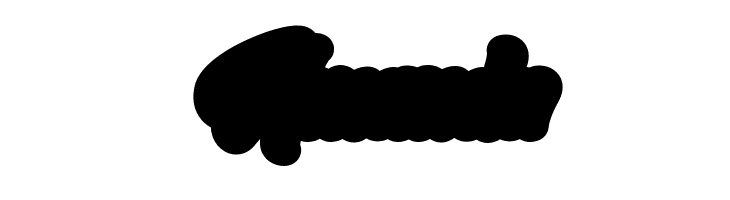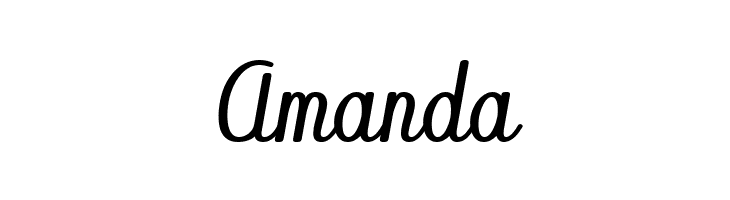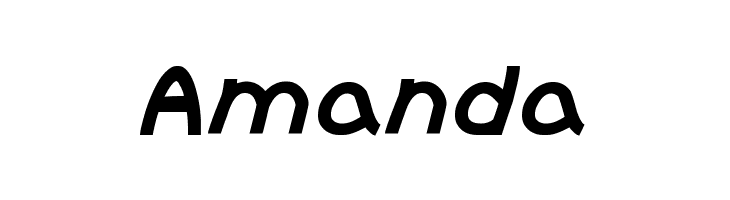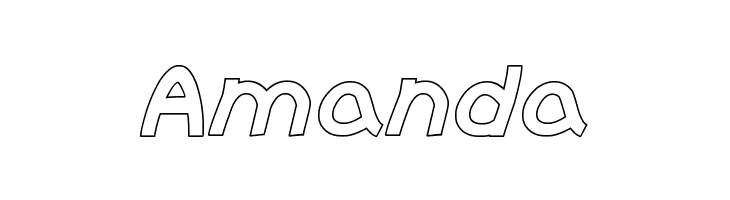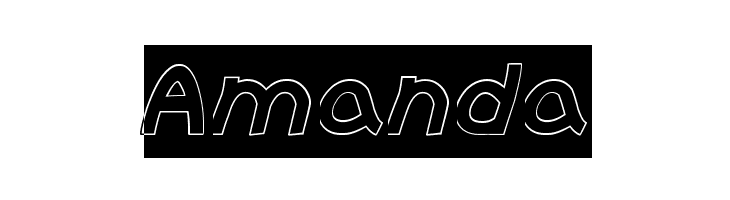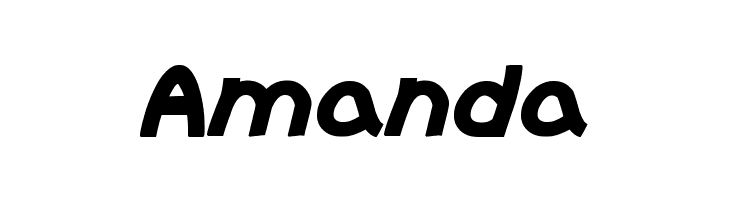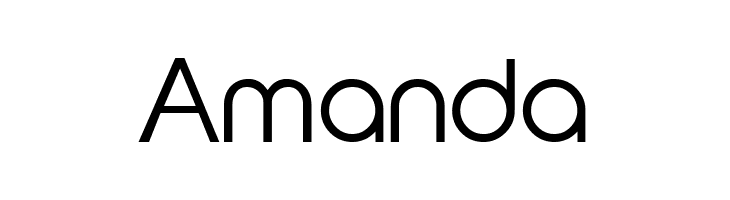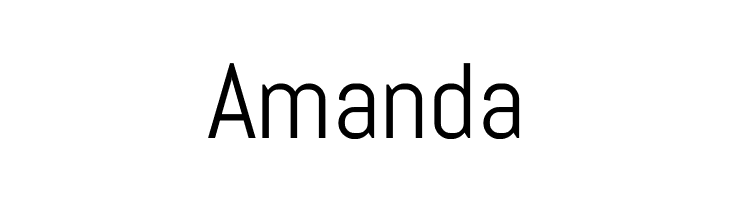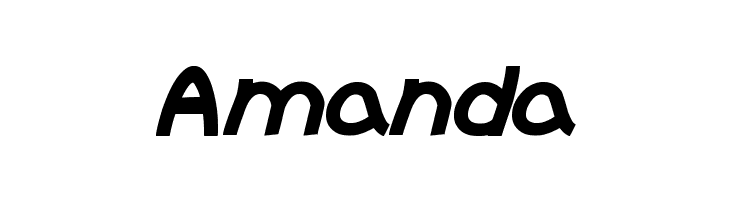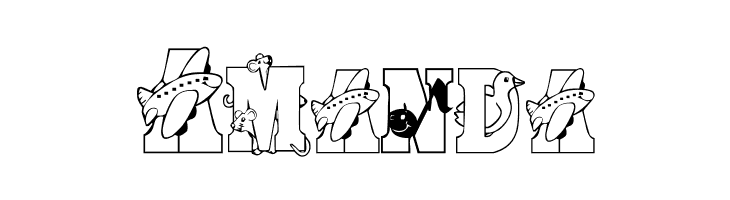
• abbys font
• abc
A bold, dynamic font with a playful, modern twist.
• ABC 2D
• abc Bold
A bold, playful font with rounded, dynamic characters.
• ABC Metamorphose
• abc-Hollow
A playful, modern hollow font with rounded, smooth characters.
• abc-Hollow-Inverse
A modern, hollow, inverse font with bold outlines and smooth, rounded edges.
• abc-Inverse
A bold, dynamic font with playful curves and a lively slant.
• abc-Light
A playful, bold font with rounded characters and a dynamic slant.
• AbcariFond
A futuristic, geometric font with characters enclosed in circles, offering a modern and technological look.
• Abcdaire Enfantin
• ABCFONT-HPLHS
A playful, bold font with exaggerated curves and whimsical shapes.
• Abdillah FREE
A modern, elegant script font with flowing, connected characters.
• AbdillahFREE
A dynamic and expressive script font with elegant, flowing cursive strokes.
• abdn font
A whimsical, vine-like font with an organic, hand-drawn style.
• Abduco
A bold, playful font with a hand-drawn, distressed look.
• Abduction
A futuristic, geometric font with bold, rounded shapes and cut-out sections.
• Abduction II
A futuristic, geometric font with bold, interconnected lines and rounded edges.
• Abduction III
A pixelated, fragmented font with a futuristic and digital aesthetic.
• Abduction IV
A fragmented, pixelated font with a modern, edgy style.
• Abdullah Italic
An elegant italic font with high contrast and flowing cursive style.
• abdun
A modern, geometric font with sharp angles and decorative elements.
• abeatbyKai